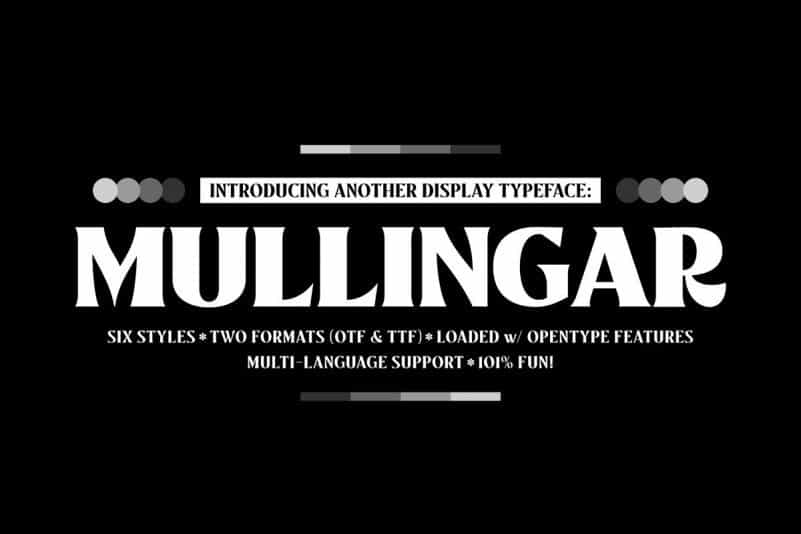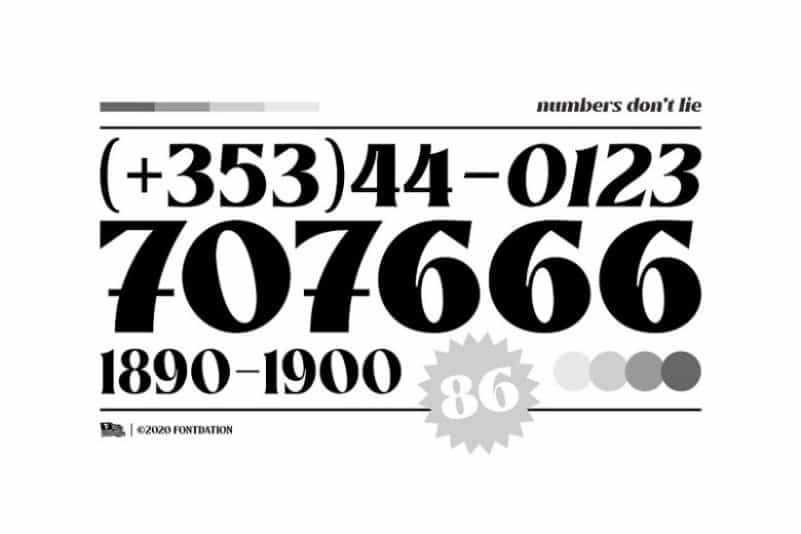
Here is Mullingar, the new display typeface which we are glad to present to you. This family was using the simple elegance of old-school advertising letterforms and sign painting to get a touch of the contemporary and a little bit magical.